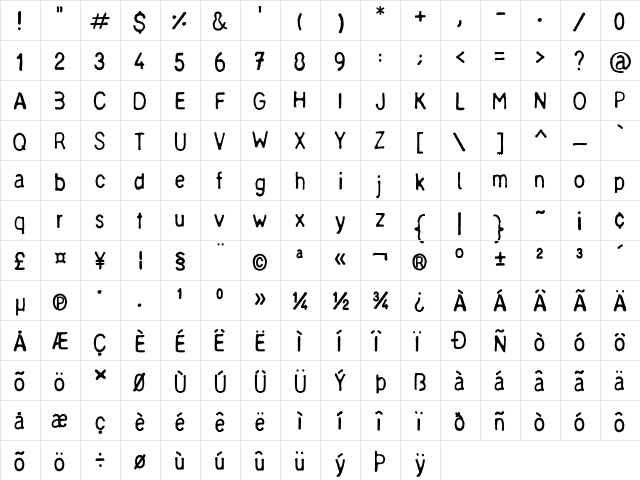
Chinese Ruler Regular
Design Context for Chinese Ruler Typeface
Chinese Ruler is a composed and adaptable typeface that performs quietly and consistently across a wide range of design contexts.